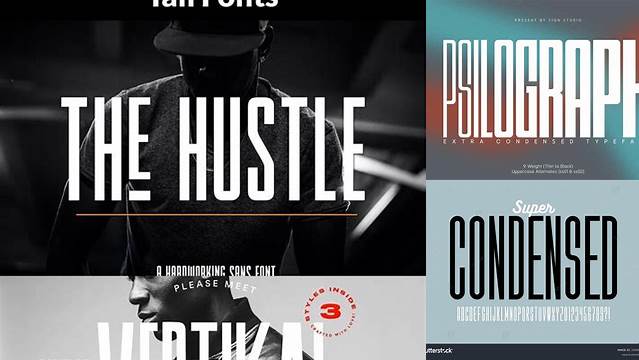
Tall Fonts: Design Guide For Vertical Typography
Hey everyone! Ever wondered how to make your text stand out, literally? Well, you've come to the right place. We're diving deep into the world of tall fonts, also known as condensed or narrow fonts. These aren't just your regular, run-of-the-mill typefaces; they're the secret weapon for designers looking to maximize space and create a unique visual impact. So, buckle up and let's explore everything about tall fonts, from their history to their best uses.
1. Understanding the Basics of Tall Fonts
Okay, let's start with the fundamentals. What exactly are tall fonts? Simply put, they are typefaces that have a greater height-to-width ratio compared to standard fonts. This means they appear taller and narrower, allowing you to fit more text into a limited horizontal space. Think of them as the skyscrapers of the font world! They're particularly useful when you need to conserve space without sacrificing readability. Whether it's for headlines, posters, or even website navigation, tall fonts can be a lifesaver. One of the primary reasons designers opt for tall fonts is their ability to grab attention. Because they deviate from the norm, they tend to stand out more, making them perfect for headings, titles, and other prominent text elements. Moreover, tall fonts can add a touch of sophistication and elegance to your designs. The elongated characters often convey a sense of modernity and style, making them a popular choice in industries like fashion, art, and luxury branding. However, it's crucial to use tall fonts judiciously. Overusing them can lead to visual clutter and negatively impact readability. The key is to balance their aesthetic appeal with functional considerations.
2. The History and Evolution of Condensed Typefaces
The story of tall fonts is a fascinating journey through the history of typography. Condensed typefaces have been around for centuries, evolving alongside printing technology and design aesthetics. Their roots can be traced back to the early days of printing when space was a premium. Printers needed to fit as much text as possible onto a single page, leading to the development of fonts that were narrower than their standard counterparts. Over time, tall fonts became more refined and stylized, with designers experimenting with different proportions and letterforms. The 20th century saw a surge in the popularity of tall fonts, particularly in advertising and editorial design. The bold, attention-grabbing nature of these fonts made them ideal for headlines and posters. Today, tall fonts continue to be a staple in the design world, with countless variations and styles available to choose from. From classic condensed serifs to modern sans-serifs, there's a tall font for every design project. The evolution of digital typography has also played a significant role in the proliferation of tall fonts. With the advent of font design software, designers can now easily create and customize their own tall fonts, pushing the boundaries of typographic expression.
3. Key Characteristics of Tall Fonts
So, what makes tall fonts tick? What are the defining characteristics that set them apart from other typefaces? Well, there are several key attributes that contribute to their unique appearance and functionality. First and foremost is their height-to-width ratio. Tall fonts are noticeably taller than they are wide, creating a vertical emphasis that draws the eye upward. This elongated shape is what gives them their distinctive look. Another important characteristic is their tight letter spacing. Because tall fonts are designed to conserve space, the letters are typically spaced closer together than in standard fonts. This can sometimes impact readability, so it's crucial to choose a tall font with well-designed letterforms and adequate spacing. The stroke weight of tall fonts can also vary widely. Some tall fonts have thick, bold strokes, while others have thin, delicate strokes. The choice of stroke weight depends on the intended use of the font and the overall design aesthetic. In general, bolder tall fonts are better suited for headlines and titles, while lighter tall fonts are more appropriate for body text. Finally, the overall style and personality of tall fonts can range from classic and elegant to modern and edgy. The best tall font for your project will depend on the specific design goals and the message you want to convey.
4. Popular Styles of Tall Fonts
When it comes to tall fonts, you're spoiled for choice! There's a vast array of styles and variations to suit every design taste. Let's take a look at some of the most popular styles:
- Condensed Sans-Serif: These are clean, modern, and highly readable. They're perfect for a variety of applications, from website navigation to print ads.
- Condensed Serif: These have a more traditional look and feel, with elegant serifs that add a touch of sophistication. They're often used in editorial design and branding.
- Narrow Gothic: These are bold, impactful, and slightly industrial. They're great for headlines and posters that need to grab attention.
- Extra Condensed: As the name suggests, these are even narrower than standard tall fonts. They're ideal for situations where space is extremely limited.
Each of these styles brings its own unique flavor to the table, so experiment and see what works best for your project. Remember, the key is to choose a tall font that complements your overall design and enhances the message you're trying to convey.
5. Best Use Cases for Tall Fonts
Okay, so you know what tall fonts are and what styles are out there, but where do they really shine? Here are some of the best use cases for tall fonts:
- Headlines and Titles: Tall fonts are fantastic for grabbing attention and making a statement.
- Posters and Banners: Maximize space and create a visually striking design.
- Website Navigation: Keep your navigation clean and concise.
- Print Ads: Stand out from the competition with a unique typographic style.
- Editorial Design: Add a touch of elegance and sophistication to your layouts.
The versatility of tall fonts makes them a valuable tool in any designer's arsenal. Whether you're working on a digital project or a print campaign, tall fonts can help you achieve your design goals.
6. Pairing Tall Fonts with Other Typefaces
Pairing tall fonts effectively can elevate your design, while a poor pairing can make your text look disjointed. The trick is to find a balance between contrast and harmony. For example, you might pair a bold, condensed sans-serif tall font with a softer, wider serif font for body text. This creates a visual hierarchy that guides the reader's eye through the page. Alternatively, you could pair a tall font with a similar typeface in a different weight or style. This creates a subtle contrast that adds visual interest without being too jarring. Experiment with different combinations until you find something that feels right for your project. There are also plenty of online resources that offer guidance on font pairing, so don't be afraid to do some research and get inspired.
7. Readability Considerations When Using Tall Fonts
While tall fonts can be visually appealing, it's important to consider their impact on readability. Because tall fonts are narrower than standard fonts, they can sometimes be more difficult to read, especially in large blocks of text. To mitigate this, choose tall fonts with well-designed letterforms and adequate spacing. Avoid using tall fonts in very small sizes, as this can make them even harder to read. Also, be mindful of the contrast between the text and the background. Insufficient contrast can strain the eyes and make it difficult to discern the letters. When in doubt, err on the side of caution and prioritize readability over aesthetics. After all, the goal of typography is to communicate effectively, and if your text is unreadable, it's not serving its purpose.